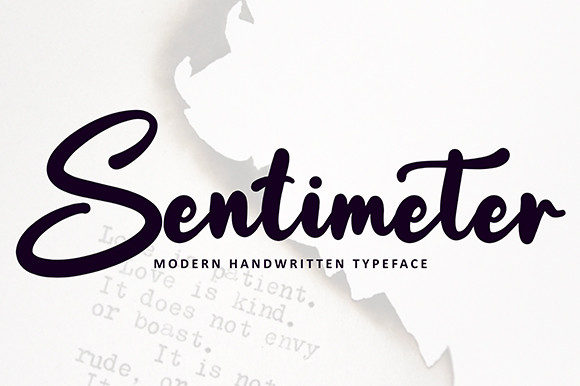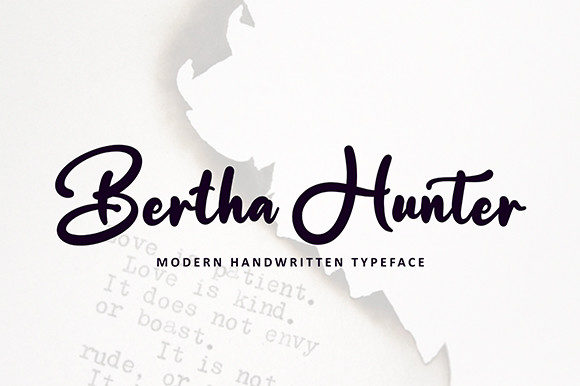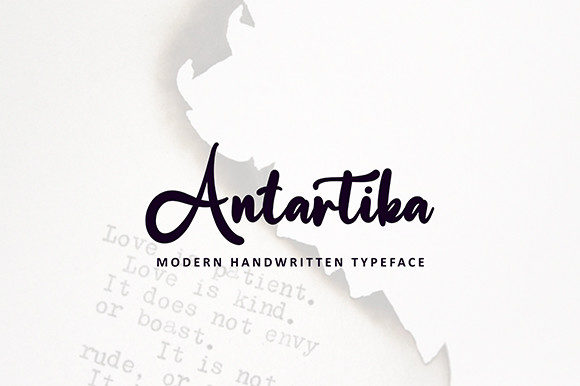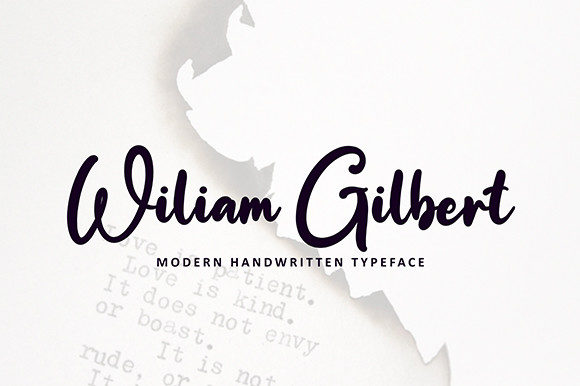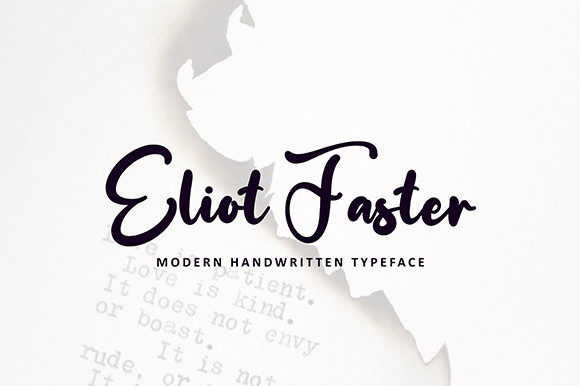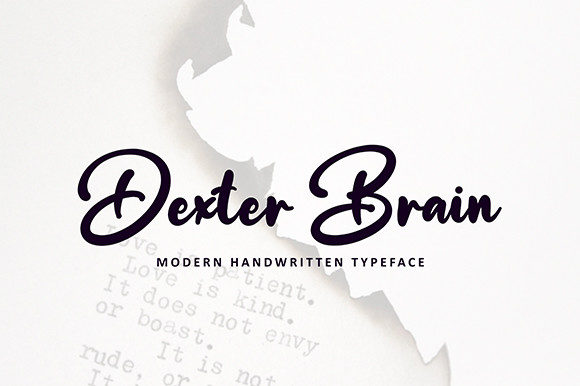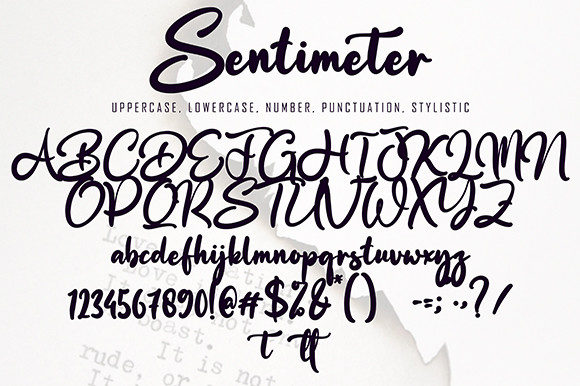
Sentimeter Font
About Sentimeter Font
Sentimeter is a gorgeous and bold handwritten font, meticulously crafted to infuse your headlines and logotype projects with a stylish touch. The font emanates strength, confidence, and dynamism, making it an ideal choice to add a nostalgic character to your designs. With its bold and striking appearance, Sentimeter is poised to make a powerful statement and leave a lasting impression.
The bold and confident nature of Sentimeter makes it well-suited for headline applications, where a strong and impactful presence is desired. The font’s bold strokes and stylish details contribute to its visual appeal, ensuring that your messages are communicated with flair and distinction.
Whether used for logotypes, headlines, or other design projects, Sentimeter reads as a dynamic and captivating typeface. Its bold demeanor adds a touch of boldness and nostalgia, making it a versatile choice for projects that require both strength and style.
In summary, Sentimeter is more than just a font; it’s a gorgeous and bold handwritten typeface that brings style and confidence to your designs. Its strong and dynamic character makes it a powerful asset for headlines and logotypes, adding a touch of nostalgic charm. Let Sentimeter be the font that elevates your projects with its bold and stylish presence.